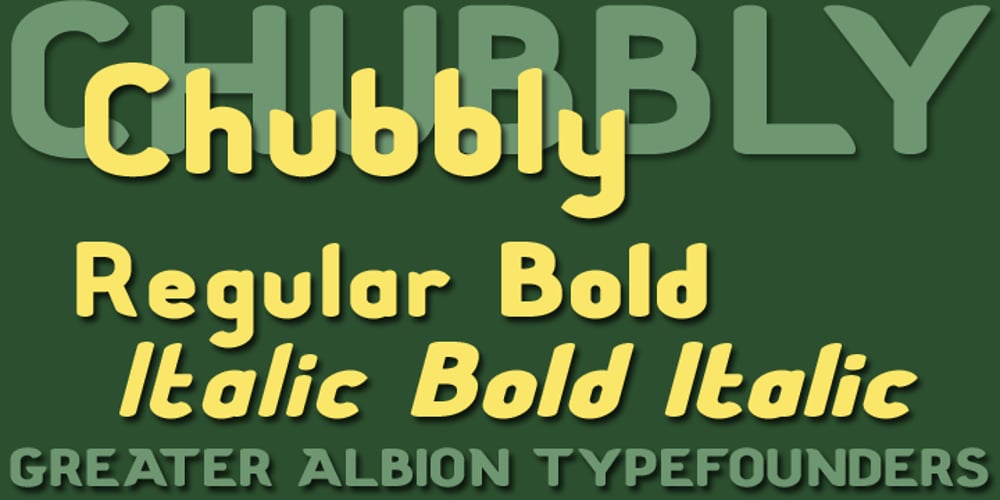
Chubbly Font Family was designed by Paul James Lloyd and published by Greater Albion Typefounders. Chubbly contains 6 styles and family package options. The Chubbly family started life as an alphabet for an illustrated children’s book. These big, chubby and friendly letterforms are easy to read and have a sense of fun about them. They’re ideal where simple eye-catching geometric letterforms are required, for posters, signs and advertising with a sense of fun.